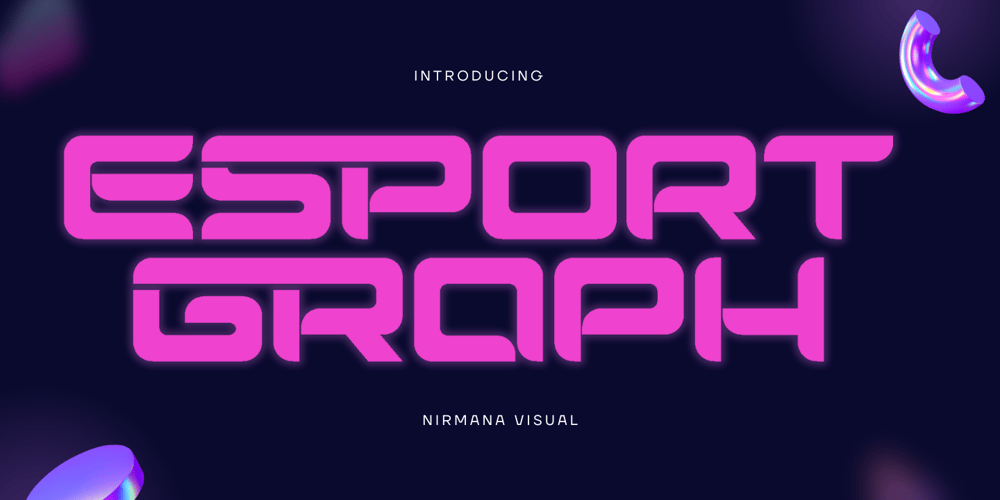
Esport Graph Font Family was designed by Sigit Dwipa and published by Nirmana Visual. Esport Graph contains 1 styles and family package options. Introducing Esport Graph Inspired by Esport style, Esport Graph offers Futuristic typographic harmony for a diversity of design projects, including logos & branding, social media posts, advertisements & product designs.